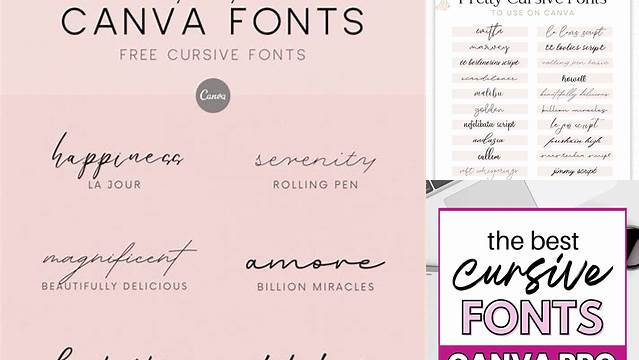
Cursive Fonts In Canva Pro: Your Ultimate Guide
Hey guys! Ever wondered how to make your designs pop with some beautiful cursive fonts in Canva Pro? Well, you’ve come to the right place! Let's dive deep into the world of cursive fonts within Canva Pro and how you can use them to elevate your projects. We're talking everything from wedding invitations to social media graphics – the possibilities are endless. So, buckle up and let’s get started!
1. Understanding Cursive Fonts
Before we jump into Canva Pro, let's get a grip on what cursive fonts really are. Cursive fonts, also known as script fonts, are designed to mimic handwriting. They often feature flowing strokes, connected letters, and a touch of elegance that you just can't get with other font styles. These fonts are perfect for adding a personal, handcrafted feel to your designs. Think about it – a handwritten note feels so much more special than a typed one, right? That's the magic cursive fonts bring to the table. When you're looking at a cursive font, consider its legibility. While some are incredibly elaborate and stylish, they might not be the best choice for large blocks of text. You want your message to be clear and readable, even with the flourish. Also, think about the mood you're trying to convey. A delicate, flowing script can be romantic and whimsical, while a bolder, more dramatic cursive can feel modern and chic. Playing around with different weights and styles within the cursive family can give you a lot of flexibility. For example, a light cursive might be ideal for wedding invitations, whereas a thicker, more pronounced script could work well for logos or headings. Ultimately, understanding the nuances of cursive fonts will help you make informed choices and create designs that truly stand out. So, keep experimenting and finding what resonates with your style!
2. What is Canva Pro and Its Benefits?
3. Accessing Cursive Fonts in Canva Pro
Alright, let's talk about getting those cursive fonts into your Canva Pro designs. It’s actually super straightforward, which is one of the things we love about Canva! First things first, make sure you're logged into your Canva Pro account. Once you're in, open up a new design or an existing one – whatever you're working on. Now, to add text, you'll usually click on the "Text" tab in the left-hand menu. This will give you options to add a heading, subheading, or body text. Click on the one you need, and a text box will appear on your canvas. Here's where the magic happens. Click on the text box to select it, and then look up at the font dropdown menu in the toolbar at the top. It probably shows the default font right now. Click on that dropdown, and you'll see a massive list of fonts. You can scroll through them, but that could take a while! The easiest way to find cursive fonts is to type "cursive" or "script" into the search bar at the top of the font menu. This will filter the list to show you all the cursive and script fonts available in Canva Pro. You can then scroll through and preview them in your text box. Another cool trick is to use the font categories. Canva often categorizes fonts, so you might find a "Handwriting" or "Script" category that makes it easier to browse. Once you find a font you like, just click on it, and it will instantly apply to your selected text. Play around with different fonts until you find the one that perfectly matches your vibe. And remember, Canva Pro has a ton of cursive options, so you're sure to find something you love!
4. Best Cursive Fonts Available in Canva Pro
Okay, let's get to the juicy part – the best cursive fonts Canva Pro has to offer! With so many options, it can be a bit overwhelming, so we're going to highlight some standouts that are versatile, beautiful, and perfect for a range of projects. First up, we have "Parisienne." This font is the epitome of elegance and sophistication. It’s a classic script with delicate loops and swirls, making it ideal for wedding invitations, thank you cards, or anything that needs a touch of romance. Think handwritten letters from a Parisian café – that’s the vibe! Next, there's "Great Vibes." This font is a bit more modern and playful while still maintaining a cursive feel. It's got a nice weight to it, making it legible even at smaller sizes, which is great for logos or branding. It’s also perfect for adding a touch of flair to social media graphics or blog headers. If you're looking for something bold and impactful, check out "Playlist Script." This font has a strong, brush-like quality that makes it stand out. It’s fantastic for headings, posters, and anything where you want to make a statement. It's got a casual yet stylish feel that works well for a variety of projects. For a more vintage or retro vibe, consider "Yellowtail." This font has a charming, slightly quirky look with its rounded letterforms and unique ligatures. It’s great for logos, packaging, or anything that needs a touch of old-school cool. Another favorite is "Balqis." This font is a bit more modern and edgy, with a slightly rough texture that gives it a handmade feel. It’s perfect for branding, social media, or anything that needs a touch of personality. And let's not forget "Herr Von Muellerhoff." This one is a mouthful, but it's worth it! This font is super elegant and formal, making it perfect for invitations, certificates, or anything that needs a touch of class. Remember, these are just a few of the amazing cursive fonts available in Canva Pro. The best way to find your favorites is to experiment and see what works best for your projects!
5. Using Cursive Fonts for Logos
When it comes to logos, cursive fonts can be a real game-changer. They bring a touch of personality, elegance, and uniqueness that can help your brand stand out from the crowd. But choosing the right cursive font for your logo is crucial. You want something that not only looks beautiful but also reflects your brand's identity and values. Think about it – a logo is the face of your brand, so you want it to make a memorable first impression. A well-chosen cursive font can convey a sense of sophistication, creativity, or even playfulness, depending on the style you go for. For example, a delicate, flowing script might be perfect for a wedding planner or a boutique clothing store, while a bolder, more modern cursive could work well for a design agency or a coffee shop. One important thing to consider is legibility. While those elaborate swashes and flourishes can look stunning, you need to make sure your logo is still easy to read, especially at smaller sizes. A logo that's too fussy can actually detract from your brand message. It’s also a good idea to think about the overall aesthetic of your brand. Does it have a vintage vibe? A modern edge? A romantic feel? Your font choice should align with the overall brand identity. When designing a logo with cursive fonts in Canva Pro, play around with different font pairings. A cursive font often looks great when paired with a simple sans-serif or serif font for the rest of your branding materials. This creates a nice contrast and helps your logo stand out. Also, consider the colors you're using. A beautiful cursive font can look even more striking when paired with the right color palette. Ultimately, using cursive fonts for logos is all about finding the right balance between beauty and functionality. Choose a font that speaks to your brand's personality and makes a lasting impression!
6. Cursive Fonts for Invitations
Alright, let's talk invitations! If you're looking to add a touch of elegance, romance, or just a little something special, cursive fonts are your best friend. They're perfect for setting the tone for any event, whether it's a wedding, a birthday party, or a fancy dinner. Think about it – the invitation is the first glimpse your guests get of your event, so you want it to be memorable and inviting. When it comes to invitations, cursive fonts can really elevate the design and make it feel more personal and handcrafted. For wedding invitations, a classic, flowing script can add a touch of timeless romance. Think about fonts like "Parisienne" or "Herr Von Muellerhoff" – these are elegant and sophisticated, perfect for setting the mood for a special day. For more casual events, like birthday parties or baby showers, you might want to go for a slightly more playful cursive font. "Great Vibes" or "Yellowtail" can add a fun, whimsical touch while still maintaining a sense of style. When using cursive fonts on invitations, it's important to consider legibility. You want your guests to be able to easily read the details, like the date, time, and location. So, avoid fonts that are too elaborate or have too many decorative elements. Pair your cursive font with a simple, easy-to-read font for the rest of the information. This creates a nice contrast and ensures that all the important details are clear. Also, think about the overall design of your invitation. Cursive fonts often look beautiful when paired with elegant graphics or delicate floral designs. And don't forget about the paper! A high-quality paper stock can really enhance the look and feel of your invitations. So, whether you're planning a grand wedding or a small get-together, cursive fonts can help you create invitations that are truly special and memorable.
7. Social Media Graphics with Cursive Fonts
Want to make your social media graphics pop? Cursive fonts can be your secret weapon! They add a touch of personality, style, and visual interest that can help your posts stand out in a crowded feed. But using cursive fonts effectively on social media is all about striking the right balance. You want to grab attention without sacrificing readability. Think about it – social media is a fast-paced environment, so your message needs to be clear and concise. When choosing a cursive font for your social media graphics, consider the platform you're using. Instagram, for example, is a visually-driven platform, so you can get away with using more decorative or elaborate fonts. On platforms like Twitter or Facebook, where text is more prominent, you might want to opt for a simpler, more legible cursive. One great way to use cursive fonts on social media is for quotes or inspirational messages. A beautiful script font can add a touch of elegance and make the quote feel more impactful. You can also use cursive fonts for headings or titles, paired with a cleaner font for the body text. This creates a nice visual hierarchy and makes your message easier to digest. Remember, legibility is key! Avoid using cursive fonts for large blocks of text, as they can be difficult to read on a small screen. Stick to short, punchy phrases or headlines. Also, consider the color of your font. A light cursive font might get lost on a busy background, so opt for a darker color or add a contrasting background to make it stand out. And don't be afraid to experiment with different font pairings. A cursive font often looks great when paired with a bold sans-serif or a classic serif font. So, go ahead and unleash your creativity with cursive fonts on social media – just remember to keep it stylish, readable, and on-brand!
8. Cursive Fonts for Branding
Let's talk branding! When you're building a brand, every detail matters, and your font choices play a huge role. Cursive fonts can add a touch of personality, elegance, and sophistication to your branding, helping you create a unique and memorable identity. But choosing the right cursive font for your brand is crucial. You want something that not only looks beautiful but also aligns with your brand's values and target audience. Think about it – your brand's visual identity is how you communicate with the world, so you want it to be authentic and consistent. A well-chosen cursive font can convey a sense of luxury, creativity, or even playfulness, depending on the style you go for. For example, a delicate, flowing script might be perfect for a high-end fashion brand or a beauty salon, while a bolder, more modern cursive could work well for a design agency or a tech startup. One important thing to consider is your brand's overall aesthetic. Is it classic and timeless? Modern and edgy? Whimsical and fun? Your font choice should reflect that. A cursive font that feels out of place with your brand's personality can actually detract from your message. When using cursive fonts for branding, think about where they'll be used. Will they be on your logo, website, business cards, social media graphics? The font needs to be versatile enough to work across all these different applications. Legibility is also key. While those elaborate swashes and flourishes can look stunning, you need to make sure your font is still easy to read, especially at smaller sizes. A brand that's difficult to decipher can actually hurt your business. So, whether you're launching a new brand or revamping an existing one, cursive fonts can be a powerful tool for creating a memorable and impactful visual identity. Just remember to choose wisely and stay true to your brand's personality!
9. Pairing Cursive Fonts with Other Fonts
Okay, font pairing – this is where the magic happens! Using cursive fonts in your designs is awesome, but knowing how to pair them with other fonts is what takes your creations to the next level. Think of it like this: your cursive font is the star of the show, but the supporting cast (the other fonts) need to complement it perfectly. The goal is to create a visual harmony that's both eye-catching and easy to read. When pairing cursive fonts with other fonts, contrast is key. You typically want to pair a cursive font with a font that's very different in style. This creates a visual interest and prevents your design from looking too monotonous. For example, a delicate, flowing cursive often looks stunning when paired with a clean, modern sans-serif font. The contrast between the elegant script and the simple sans-serif is visually appealing and helps each font stand out. Another classic pairing is a cursive font with a serif font. Serif fonts have those little “feet” or strokes at the end of the letters, which give them a more traditional and formal feel. Pairing a cursive with a serif can create a sophisticated and timeless look. When choosing a font to pair with a cursive, also consider the weight and size of the fonts. You want to create a visual hierarchy, where the cursive font is the main focus and the other font is used for supporting text. Typically, you'll want to use the cursive font for headings or titles and the other font for body text or captions. Avoid using two cursive fonts together in the same design. This can be overwhelming and make your design look cluttered and difficult to read. It’s like having too many lead singers in a band – it just doesn’t work! In Canva Pro, experiment with different font combinations until you find a pairing that you love. Use the text tool to add different font styles and play around with the sizes, weights, and colors. The more you experiment, the better you'll become at creating beautiful and effective font pairings with cursive fonts!
10. Using Cursive Fonts for Headings and Titles
Let's talk headings and titles! When it comes to making a statement, cursive fonts are your go-to choice. They add a touch of elegance, personality, and visual interest that can really grab attention. Think about it – the heading is the first thing people see, so you want it to make a strong impression. Using a cursive font for your headings and titles is a fantastic way to set the tone for your design and create a sense of style. But there are a few things to keep in mind when using cursive fonts for headings. First and foremost, legibility is key. You want your heading to be easy to read, even at a glance. Avoid using cursive fonts that are too elaborate or have too many decorative elements. A simple, flowing script is often the best choice for headings. Another important consideration is the overall design of your project. Your heading should complement the rest of your design elements, including the colors, graphics, and other fonts. If you're using a cursive font for your heading, you'll typically want to pair it with a simpler font for the body text. This creates a nice contrast and ensures that the heading stands out. When using cursive fonts for headings, think about the message you're trying to convey. A delicate, flowing script might be perfect for a wedding invitation or a thank-you card, while a bolder, more modern cursive could work well for a blog post or a social media graphic. Also, consider the size and weight of your heading. You want it to be large enough to be easily seen, but not so large that it overwhelms the rest of the design. In Canva Pro, experiment with different font sizes and weights until you find the perfect balance. And don't be afraid to get creative with the colors. A beautiful cursive heading can look even more striking when paired with the right color palette. So, go ahead and unleash your inner designer – cursive fonts are your secret weapon for creating headings and titles that truly shine!
11. Legibility Considerations for Cursive Fonts
Okay, let's talk legibility – this is super important when it comes to using cursive fonts. We all love how beautiful and elegant cursive fonts can be, but if people can't read what you're writing, then what's the point? Think about it – you want your message to be clear and effective, not a guessing game. Legibility is all about making sure your text is easy to read at a glance. When it comes to cursive fonts, this can be a bit tricky because they often have more intricate details and flowing strokes than other font styles. One of the biggest factors affecting legibility is the font itself. Some cursive fonts are simply easier to read than others. Fonts with clean lines and a good amount of spacing between the letters tend to be more legible than those with overly decorative elements or tight spacing. When choosing a cursive font, always do a quick legibility check. Imagine seeing the font on a small screen or from a distance. Can you still easily make out the letters? Another important consideration is the size of the font. Cursive fonts often look best when used in larger sizes, like for headings or titles. When you shrink them down too much, the details can get lost, and the letters can become difficult to distinguish. The color and contrast of your font also play a role in legibility. A light cursive font on a busy background can be almost impossible to read. Always make sure there's enough contrast between the font color and the background color. Using a dark font on a light background or vice versa is generally the safest bet. Finally, think about the amount of text you're using. Cursive fonts are best used sparingly, for short phrases or headlines. Avoid using them for large blocks of text, as this can strain the reader's eyes and make your message less effective. In Canva Pro, always preview your designs to make sure your cursive fonts are legible. Zoom in and out to see how they look at different sizes. And if you're ever in doubt, it's always better to err on the side of clarity. A beautiful but illegible font is no match for a clear and effective message! So, keep these legibility considerations in mind, and you'll be rocking those cursive fonts like a pro.
12. Cursive Fonts and Readability
Building on the topic of legibility, let’s dive a little deeper into readability. While legibility is about whether you can recognize individual letters, readability is about how easily you can read and understand text as a whole. Think of it as the overall reading experience. Cursive fonts, with their flowing strokes and connecting letters, can sometimes pose a challenge to readability if not used carefully. The key is to strike a balance between style and clarity. You want your text to look beautiful, but you also want people to be able to read it effortlessly. One of the main factors affecting readability is the length of your text. As we mentioned before, cursive fonts are best used for short phrases, headings, or titles. Trying to read a long paragraph in cursive can be tiring and frustrating for the reader. Another important consideration is the context in which the font is being used. A cursive font that looks beautiful on a wedding invitation might not be the best choice for a business report or a website’s body text. Think about the purpose of your design and the audience you’re trying to reach. The spacing between letters and words also plays a huge role in readability. If the letters are too close together, they can become difficult to distinguish, and the text can look cluttered. On the other hand, if the letters are too far apart, the text can feel disjointed and hard to follow. Experiment with different spacing options in Canva Pro to find what works best for your chosen font. Line height, or the spacing between lines of text, is another factor to consider. If the lines are too close together, the text can feel cramped and difficult to read. If the lines are too far apart, the text can feel disconnected. A good rule of thumb is to use a line height that’s about 1.5 times the font size. And finally, think about the background on which the text is being displayed. A busy or distracting background can make it difficult to read even the most legible font. In Canva Pro, try using a solid-colored background or adding a translucent overlay to help the text stand out. So, when working with cursive fonts, remember that readability is just as important as aesthetics. By considering these factors, you can create designs that are both beautiful and easy to understand.
13. Color Combinations with Cursive Fonts
Color, color, color! It’s a crucial element in design, and when you're working with cursive fonts, the right color combinations can make all the difference. Think of color as the mood setter – it can evoke emotions, create contrast, and make your text pop (or fade into the background if you're not careful!). The goal is to choose colors that complement your cursive font and enhance your overall design. One of the most classic and effective color combinations is a dark font on a light background, or vice versa. This creates strong contrast and ensures that your cursive text is easily readable. Think black cursive on a white background for a clean, elegant look, or white cursive on a deep blue background for a more dramatic effect. Monochromatic color schemes, where you use different shades of the same color, can also work beautifully with cursive fonts. For example, you could use a light gray cursive on a darker gray background for a subtle, sophisticated look. Another approach is to use complementary colors, which are colors that are opposite each other on the color wheel (like blue and orange, or red and green). These colors create a vibrant contrast that can really make your design stand out. However, it’s important to use complementary colors carefully, as they can sometimes be overwhelming if not balanced correctly. Analogous colors, which are colors that are next to each other on the color wheel (like blue, blue-green, and green), can create a harmonious and calming effect. These color schemes often work well for designs that need a more subtle, understated look. When choosing colors for your cursive fonts, think about the overall mood and message you want to convey. Warm colors like red, orange, and yellow tend to be energetic and attention-grabbing, while cool colors like blue, green, and purple tend to be calming and sophisticated. In Canva Pro, experiment with different color combinations and use the color picker tool to find the perfect shades for your cursive fonts. Don't be afraid to try new things and see what works best for your design! And remember, the right color combination can elevate your cursive font from beautiful to absolutely stunning.
14. Cursive Fonts in Different Design Styles
Cursive fonts are incredibly versatile! They can fit into a wide range of design styles, from classic and elegant to modern and edgy. It's all about choosing the right font and using it in a way that complements the overall aesthetic of your design. Think of it like this: your cursive font is a chameleon, able to adapt to different environments and still look amazing. In a classic or traditional design, cursive fonts can add a touch of timeless elegance. Think wedding invitations, thank-you cards, or formal announcements. Fonts like “Parisienne” or “Herr Von Muellerhoff” are perfect for this style, with their delicate strokes and refined details. Pair them with classic serif fonts and soft, muted colors for a sophisticated look. For a more modern design, you can use cursive fonts to add a touch of personality and flair. Choose a bolder, more contemporary script, like “Playlist Script” or “Balqis,” and pair it with a clean sans-serif font. Use bright, vibrant colors and geometric shapes for a modern, edgy feel. Cursive fonts can also work beautifully in a vintage or retro design. Fonts like “Yellowtail” or “Lobster Two” have a charming, old-school vibe that's perfect for creating a nostalgic look. Use muted colors, distressed textures, and vintage-inspired graphics to complete the retro feel. In a whimsical or playful design, cursive fonts can add a touch of fun and lightheartedness. Choose a font with a playful, handwritten feel, and pair it with bright colors, quirky illustrations, and playful patterns. Think baby showers, birthday parties, or children's book covers. For a minimalist design, cursive fonts can be used sparingly to add a touch of elegance and visual interest. Choose a simple, clean script and use it for headings or titles, paired with a minimalist sans-serif font and a limited color palette. In Canva Pro, experiment with different cursive fonts and design styles to see what works best for your project. Don't be afraid to mix and match different elements to create a unique and personalized design. And remember, the key is to choose a font that complements the overall aesthetic and enhances your message.
15. Cursive Fonts for Print vs. Digital
Okay, let's talk about the difference between using cursive fonts for print versus digital designs. It's a crucial consideration because what looks great on your computer screen might not translate perfectly to a printed piece, and vice versa. Think of it like choosing the right tool for the job – you wouldn't use a hammer to screw in a nail, right? The same goes for font choices. When you're designing for print, there are a few key factors to keep in mind. First, consider the resolution of your printer. If you're using a low-resolution printer, fine details in your cursive font might get lost or appear blurry. Choose a font with clean lines and avoid overly intricate scripts. The type of paper you're using also matters. Smooth, high-quality paper will show off your cursive font beautifully, while textured or absorbent paper might cause the ink to bleed and make the font look less sharp. Color is another important consideration for print designs. Colors can appear differently in print than they do on screen, so it's always a good idea to do a test print to make sure your chosen color palette looks the way you want it to. When you're designing for digital, you have a bit more flexibility. Screen resolution is generally higher than print resolution, so you can use more detailed cursive fonts without worrying about them looking blurry. However, legibility is still key. Think about the size at which your font will be displayed on different devices (desktops, laptops, tablets, smartphones). A cursive font that looks great on a large monitor might be difficult to read on a small screen. Color contrast is also super important for digital designs. Make sure your cursive font stands out against the background, especially on smaller screens. And think about the overall user experience. Will your font be used for headings, body text, or call-to-action buttons? Choose a font that's appropriate for its intended purpose and enhances the overall readability of your design. In Canva Pro, you can easily create designs for both print and digital. Just make sure you're considering the specific requirements of each medium when choosing your cursive fonts and color palettes.
16. Combining Cursive Fonts with Images
Alright, let's talk about the magic that happens when you combine cursive fonts with stunning images! This is where your designs can really come to life and tell a story. Think of your font and image as dance partners – they need to move together in harmony to create a beautiful performance. The goal is to create a visual balance that's both eye-catching and effective in communicating your message. One of the key considerations when combining cursive fonts with images is contrast. You want your font to stand out against the background, but you also don't want it to overpower the image. A great way to achieve this is by using a contrasting color for your font. For example, if you have a dark image, use a light-colored cursive font. Or, if you have a light image, use a dark-colored font. Another technique is to use a semi-transparent background behind your cursive text. This can help it stand out without completely obscuring the image behind it. Think of it like a spotlight on your text. The placement of your text is also crucial. You want to position your cursive font in a way that complements the image and doesn't distract from the main subject. Try placing your text in a blank space or along a clean edge of the image. You can also use the image to frame your text, creating a sense of visual harmony. When choosing an image to pair with your cursive font, think about the overall mood and message you want to convey. A romantic cursive font might pair well with a soft, dreamy image, while a bolder, more modern script might work better with a sharp, edgy photo. The image and font should work together to tell a cohesive story. In Canva Pro, you have access to a vast library of images that you can use to create stunning designs. Experiment with different images and font combinations until you find the perfect pairing for your project. Don't be afraid to get creative and try new things! The possibilities are endless when you combine beautiful cursive fonts with captivating images.
17. Text Effects to Enhance Cursive Fonts
Want to take your cursive fonts to the next level? Text effects are your secret weapon! They can add depth, dimension, and a touch of magic to your designs. Think of text effects as the icing on the cake – they enhance the overall look and make your fonts even more visually appealing. There are tons of different text effects you can use, and the best choice depends on the font you're using and the style of your design. One popular effect is shadows. Adding a subtle shadow to your cursive font can make it pop off the page and create a sense of depth. Experiment with different shadow colors, angles, and distances to get the perfect look. Another classic effect is outlines. Outlining your cursive font can make it stand out against a busy background or add a touch of boldness to your design. Try using a contrasting color for the outline to create a visual pop. Gradients can also add a lot of visual interest to your cursive fonts. A gradient is a gradual transition between two or more colors. You can use gradients to create a sense of depth, movement, or even a futuristic feel. In Canva Pro, you can easily add gradients to your text using the color picker tool. Another fun effect is text masks. A text mask allows you to fill your cursive font with an image or pattern. This can create a really unique and eye-catching look. You can use photos, illustrations, or even textures to fill your font. If you want to add a vintage or distressed look to your cursive font, try using a texture overlay. This can give your font a worn, weathered appearance that's perfect for retro designs. And finally, don't forget about the power of layering. You can layer multiple text effects on top of each other to create really complex and interesting designs. For example, you could add a shadow, an outline, and a gradient to your cursive font for a truly unique look. In Canva Pro, experiment with different text effects and see what works best for your project. Don't be afraid to get creative and try new things! Text effects are a fantastic way to enhance your cursive fonts and create designs that truly stand out.
18. Cursive Fonts and Kerning
Let's get a little technical and talk about kerning! It might sound like a nerdy design term, but it's super important for making your cursive fonts look their best. Think of kerning as the art of adjusting the space between individual letters. It's all about creating a visual harmony that makes your text easy to read and pleasing to the eye. With cursive fonts, kerning is especially crucial because the letters are often connected, and the spacing can make a big difference in readability. If the letters are too close together, they can run into each other and become difficult to distinguish. If the letters are too far apart, the text can look disjointed and hard to follow. The goal of kerning is to create a consistent and balanced spacing between all the letters in your word or phrase. This might mean tightening the space between some letters and widening the space between others. For example, letters with angled strokes, like